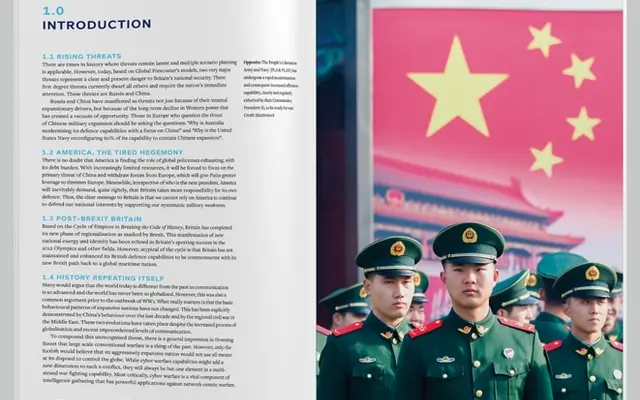
Foundry Context
The Foundry Types · 2006
A neo-grotesque sans with very round, minimal-contrast letterforms designed to sit comfortably across branding, print and screen applications.
Drawing on 19th-century sans serif precedents, Foundry Context keeps stroke contrast low and letterforms deliberately unrefined, avoiding both humanistic script influence and over-conscious detail. Its large x-height, compact spacing and even terminal distribution across the weight range make it a practical choice for legibility-critical work. The six-style family runs from Regular to Extra Bold with a single italic, and includes small caps, ligatures, tabular and proportional figures.
The foundry explicitly describes it as neo-grotesque in style, with minimal stroke contrast, very round pure letterforms, and no humanistic script influence, placing it firmly in the neo-grotesque tradition.